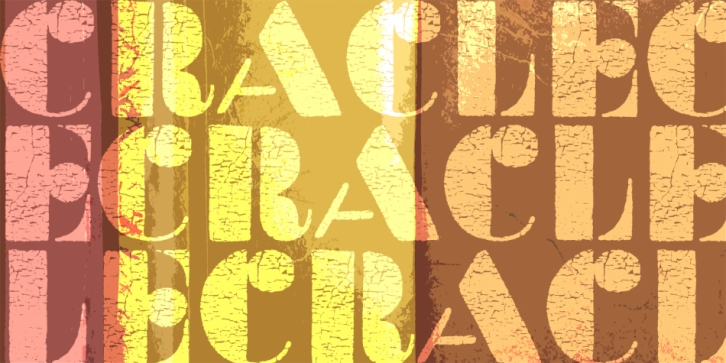
Crackle is a display sans font family. This typeface has two styles and was published by Klaudia Krynicka.
To design a font Crackle, I was inspired by the advertisement in the polish weekly “Tygodnik Powszechny” from 1938.
· Crackle Regular
· Crackle Black